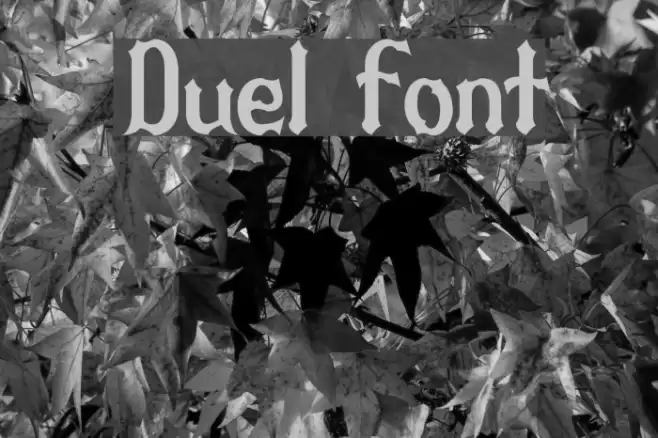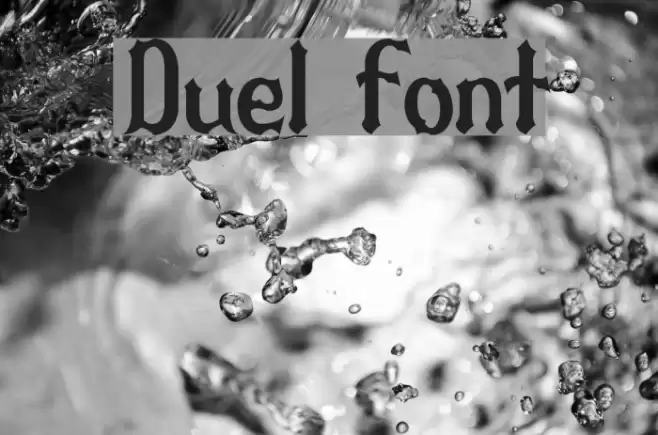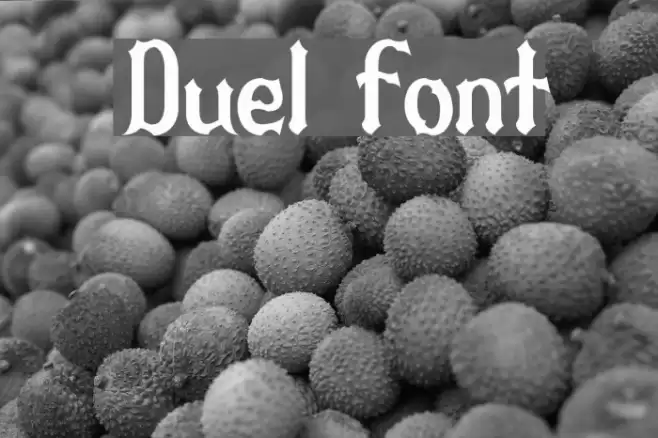
Duel Font
Duel Description
This font exhibits a bold and dramatic style, reminiscent of medieval or gothic script. The characters are characterized by sharp, angular lines and pronounced serifs, giving them a strong and authoritative presence. The uppercase letters are particularly striking, with a uniform height and consistent spacing, while the lowercase letters maintain a cohesive flow with slightly more variation in height and form. The numerals are equally bold, ensuring readability while maintaining the overall aesthetic. Special characters and punctuation are designed to complement the primary alphabet, featuring similar angular and pointed elements. This font's unique style makes it ideal for projects that require a historical or fantasy theme.
A bold, gothic-style font with sharp, angular lines and pronounced serifs from Uncategorized fonts.
- Proposed Projects: Ideal for fantasy-themed designs, historical documents, book covers, and video game graphics.
- Overall Style: Vintage